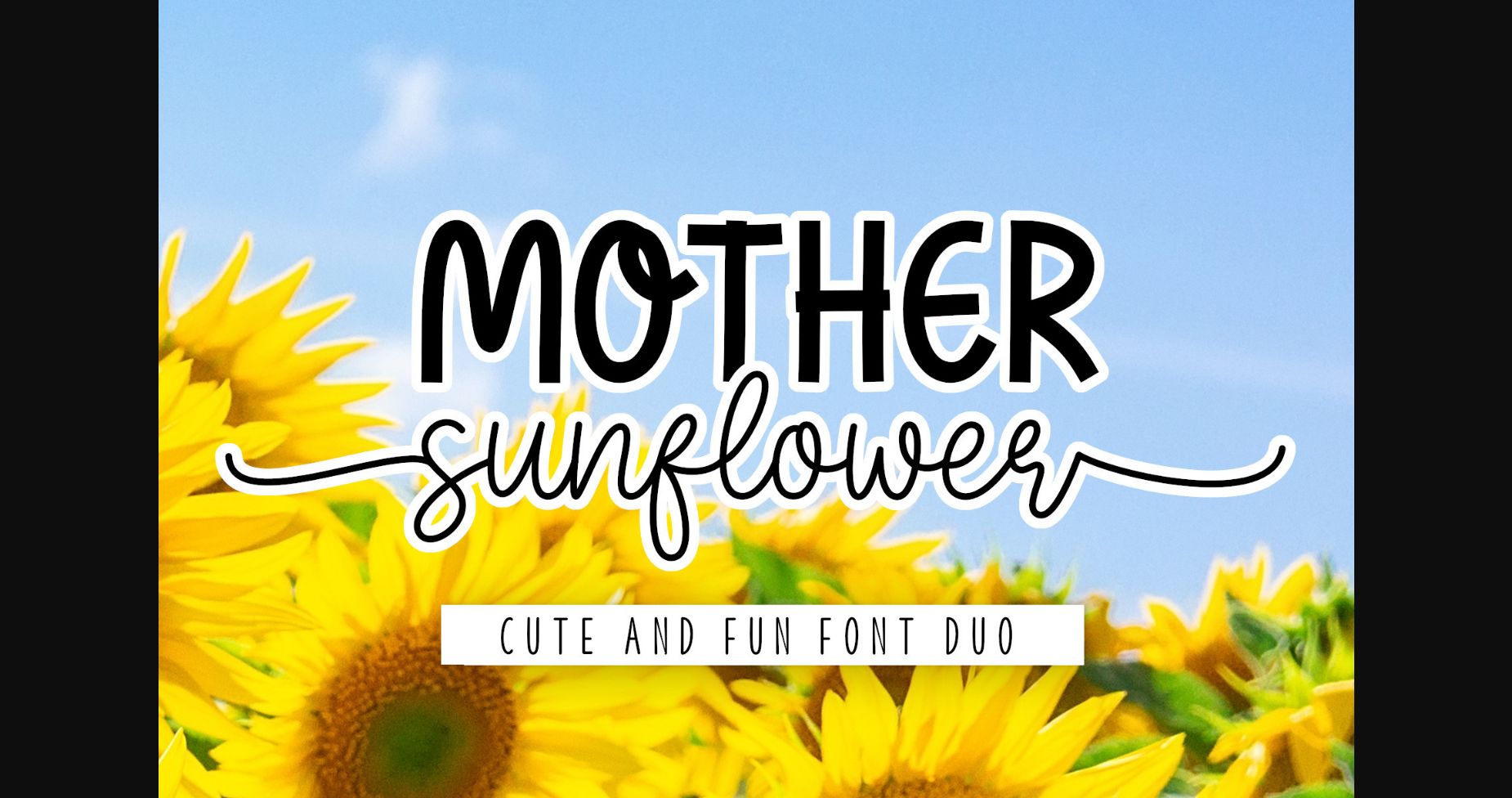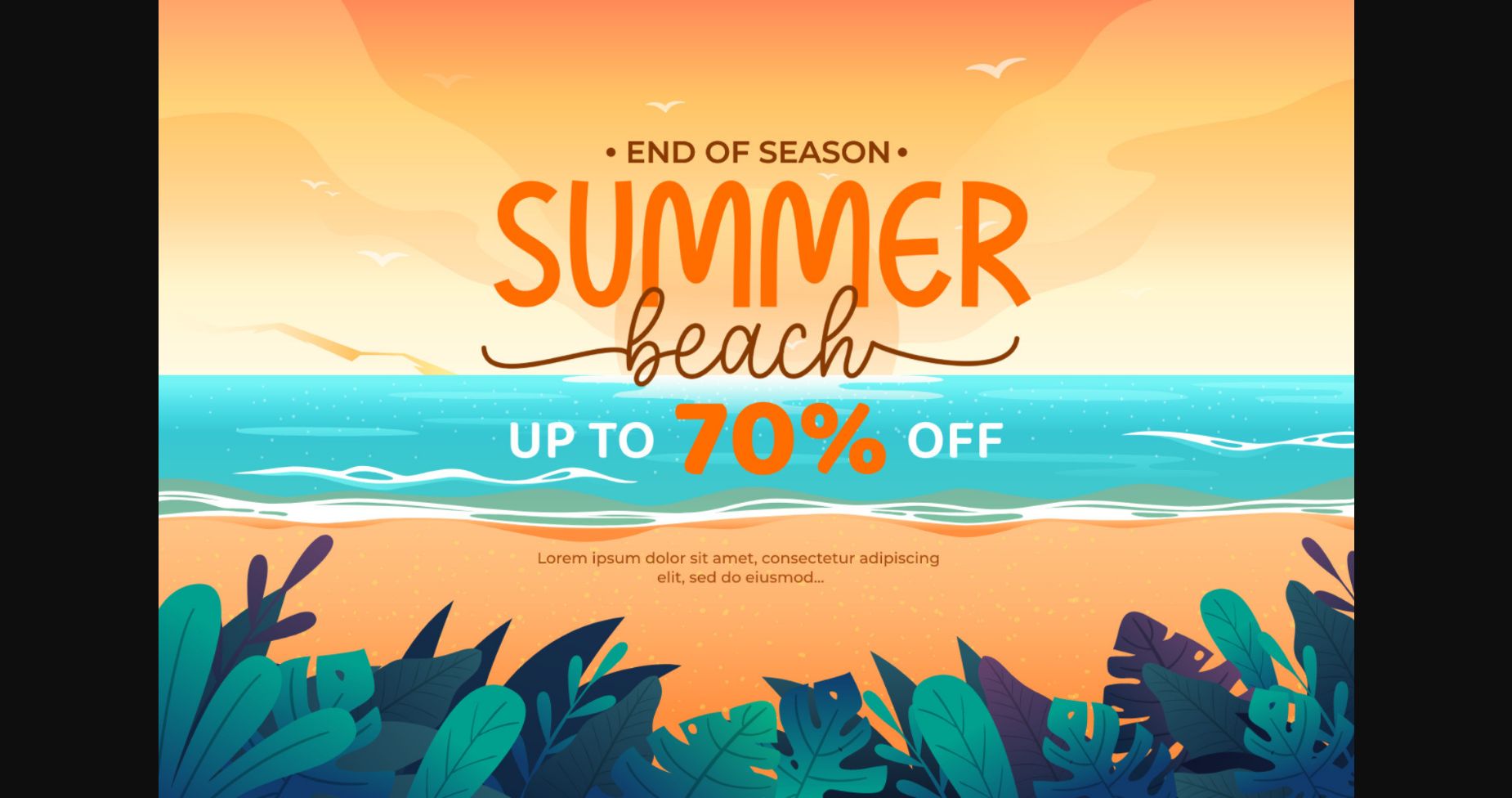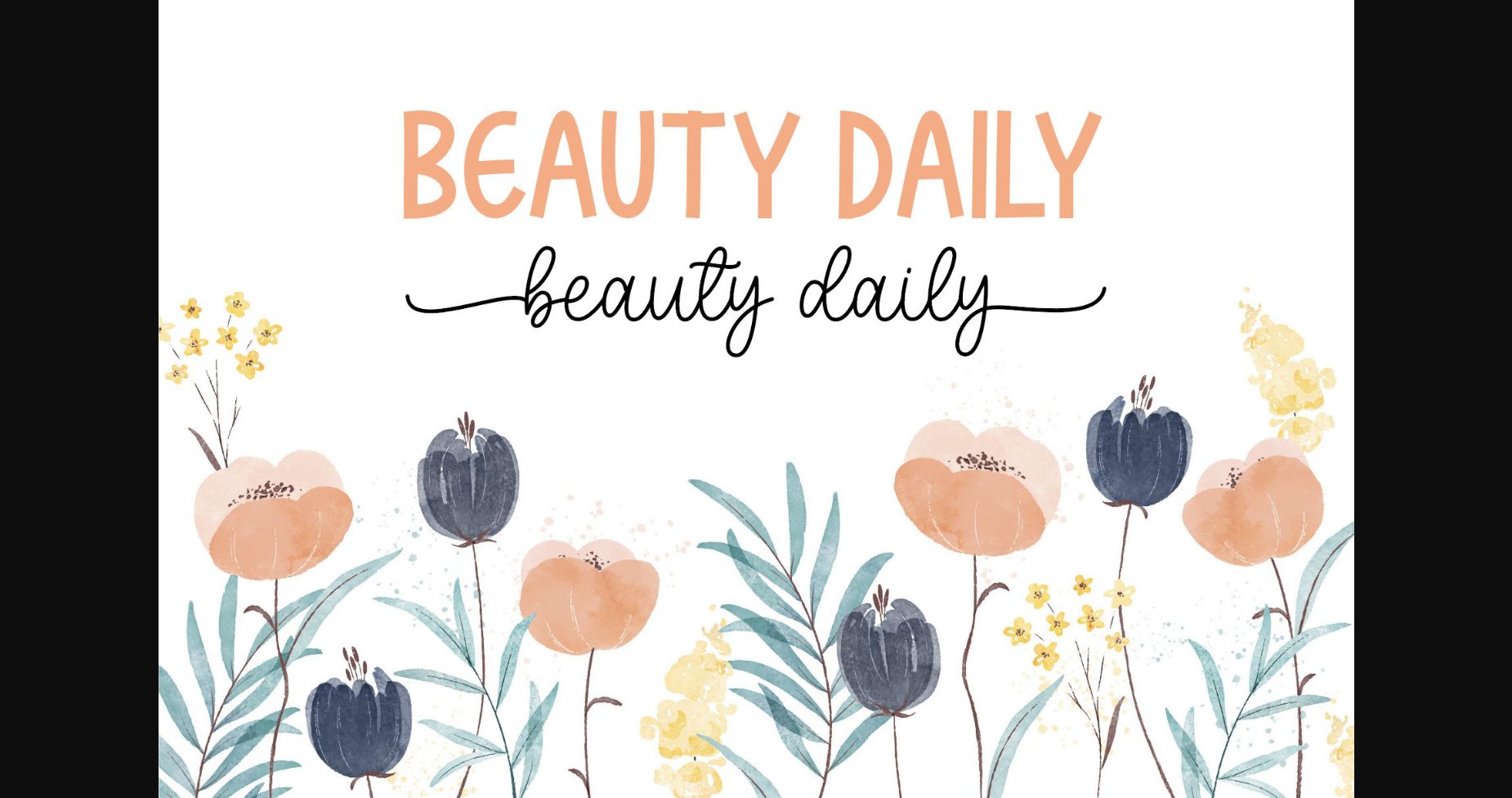
About Mother Sunflower Font
Mother sunflower is a gorgeous duo font (sans serif and serif). This font is perfect for various design purposes such as posters, logos, wall hangings, quotes, printing, stickers, and many more! This font is PUA encoded which means you can access all of the glyphs and swashes with ease!